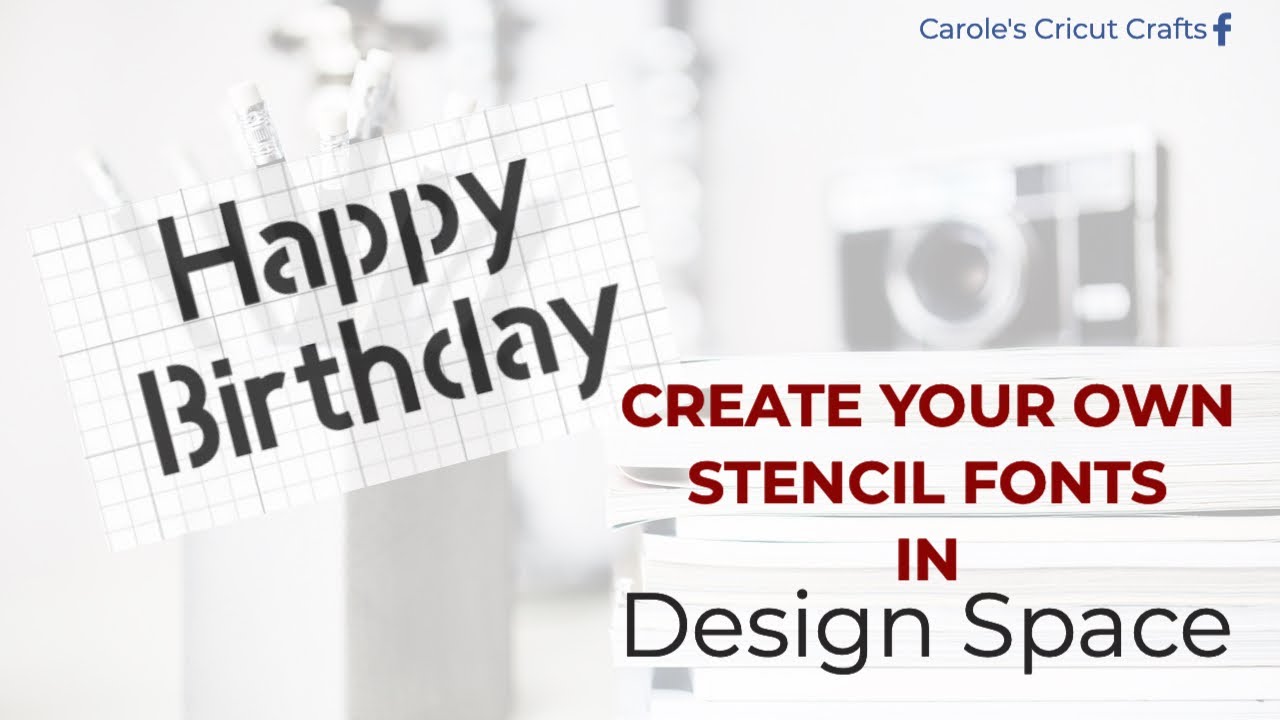
Making Stencil Fonts
Stencil Font Stencil fonts look like physical stencils, where a portion of the letter is filled with ink or paint and a section of the letter is missing. use our free stencil generator to create painted military crates and other designs!. We have stencil font themes in traditional stencils, graffiti, army military, pencil and spray paint. create letters in stencils outlines for tattoos. enter someone's name or your own name and create a stencil version of it. have fun!.
Stencil Font Custom Text Stencil Streets Workshop You can use the following tool to generate text graphics based on your selection of colors, text effects and sizes using stencil fonts in seconds. you can then save the image, or use the embed button to get image links. Use this free online stencil maker to create printable alphabet stencils, letter stencils, and number stencils. Make printable alphabet, letter, and number stencils. for painting, quilting, wood working, stained glass patterns, and other arts & crafts. Turn your text into bold cutout lettering using the stencil font generator — perfect for print and digital art.
Free Font Stencil Fontsarena Make printable alphabet, letter, and number stencils. for painting, quilting, wood working, stained glass patterns, and other arts & crafts. Turn your text into bold cutout lettering using the stencil font generator — perfect for print and digital art. In this video i show you how to make a text stencil from any font, so that the font is stable and nothing falls out. more. Discover 52 bold stencil fonts & cuttable fonts—perfect for signs, logos, or laser cutting. includes free & premium picks with usage tips. It’s super easy and fun to make your own printable stencil letters in no time using the stencil font generator tool. choose the shape templates and follow the steps below. Convert your text into clean, cuttable stencils for laser cutting (svg) and 3d printing (stl). perfect for painting, airbrushing, signage, and diy craft projects.
Stencil Font Download Famous Fonts In this video i show you how to make a text stencil from any font, so that the font is stable and nothing falls out. more. Discover 52 bold stencil fonts & cuttable fonts—perfect for signs, logos, or laser cutting. includes free & premium picks with usage tips. It’s super easy and fun to make your own printable stencil letters in no time using the stencil font generator tool. choose the shape templates and follow the steps below. Convert your text into clean, cuttable stencils for laser cutting (svg) and 3d printing (stl). perfect for painting, airbrushing, signage, and diy craft projects.